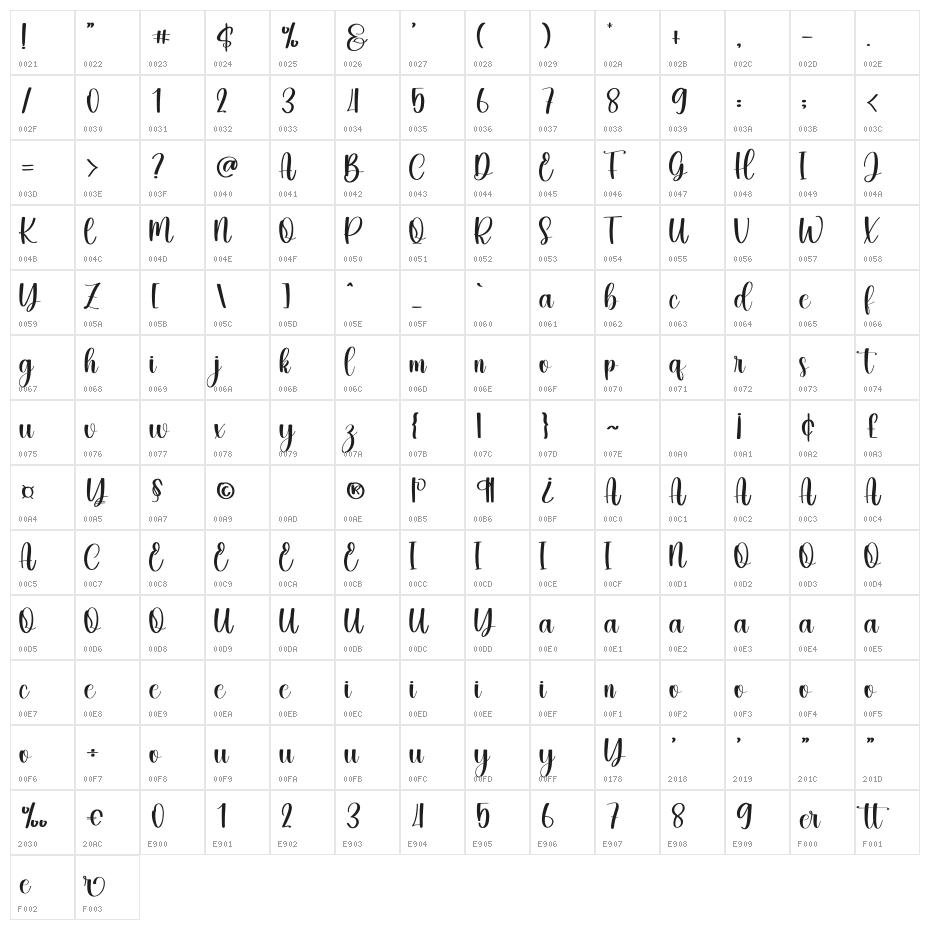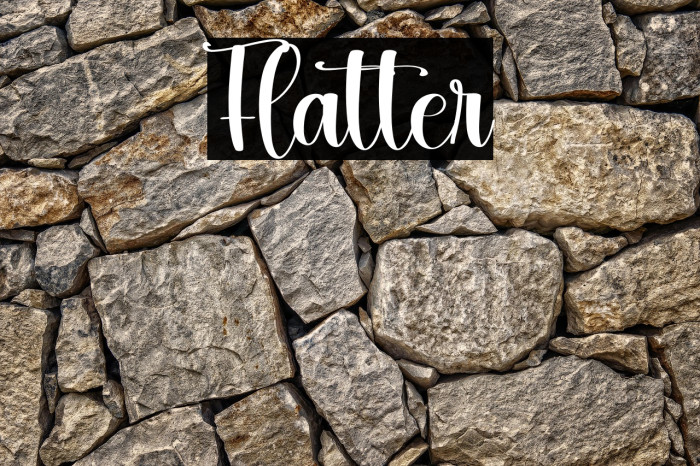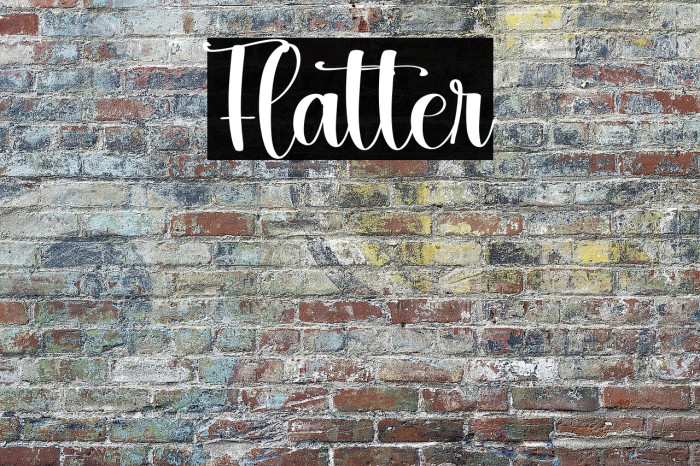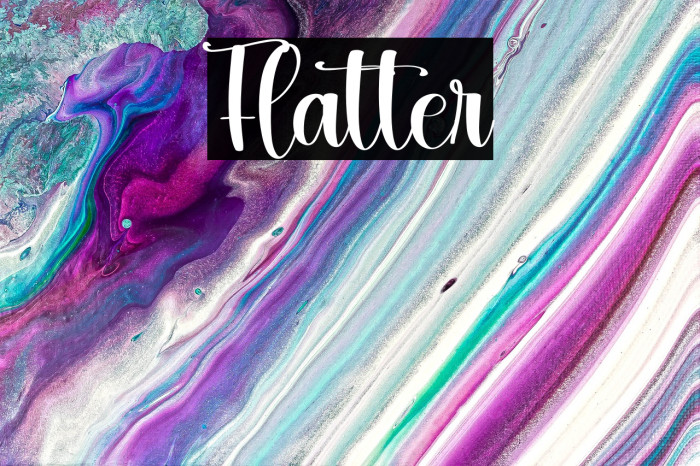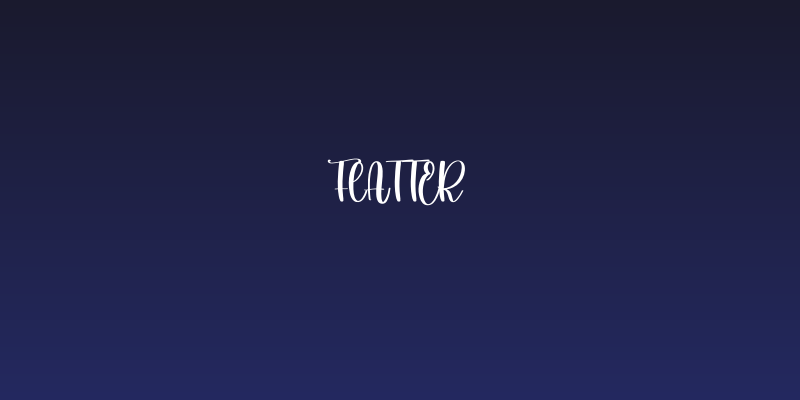
Flatter Font
Flatter Description
This font features a lively and flowing script style with a handwritten appearance. The letters are characterized by their elegant curves and loops, giving a sense of movement and fluidity. The uppercase letters are bold and prominent, while the lowercase letters maintain a consistent style with slightly less emphasis. The numbers and special characters are designed to match the overall aesthetic, ensuring a cohesive look. The font's playful yet sophisticated design makes it suitable for creative projects that require a personal touch.
| Use Case | Logos, Headlines, Invitations |
| Proposed Projects | Ideal for wedding invitations, greeting cards, branding, and social media graphics. |